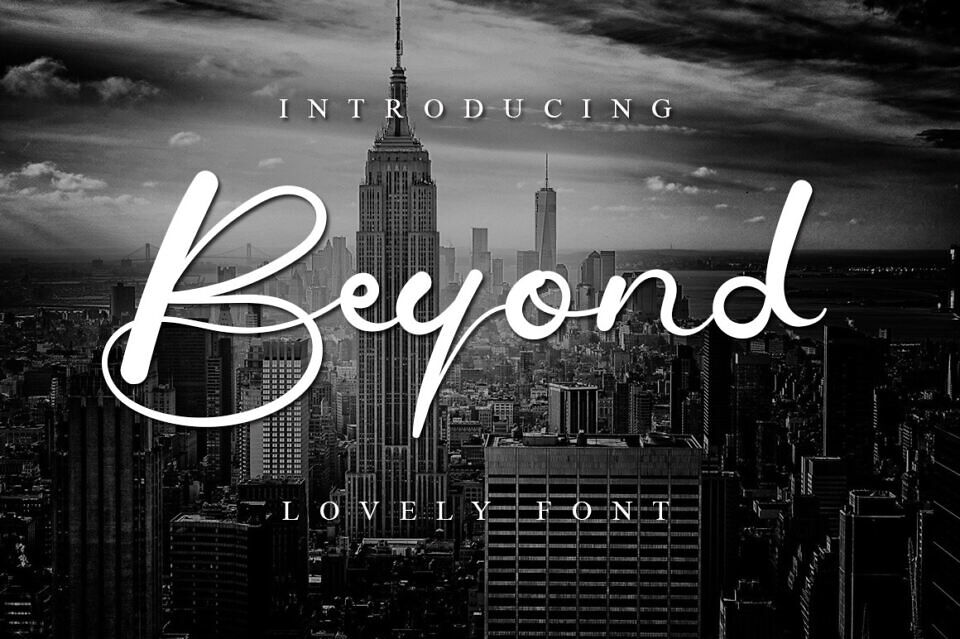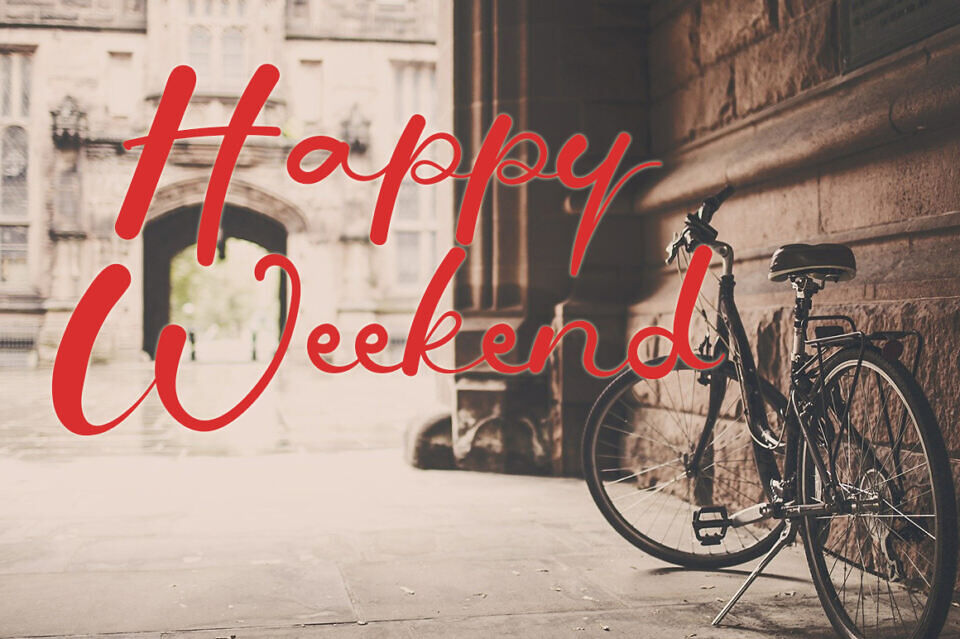
Beyond is a beautiful and sweet handwritten font. It is fresh, clean, and elegant. This font will look amazing in a great number of projects, both formal and informal.
It will add an incredibly joyful touch to your designs. By using this font, your business will look more beautiful!